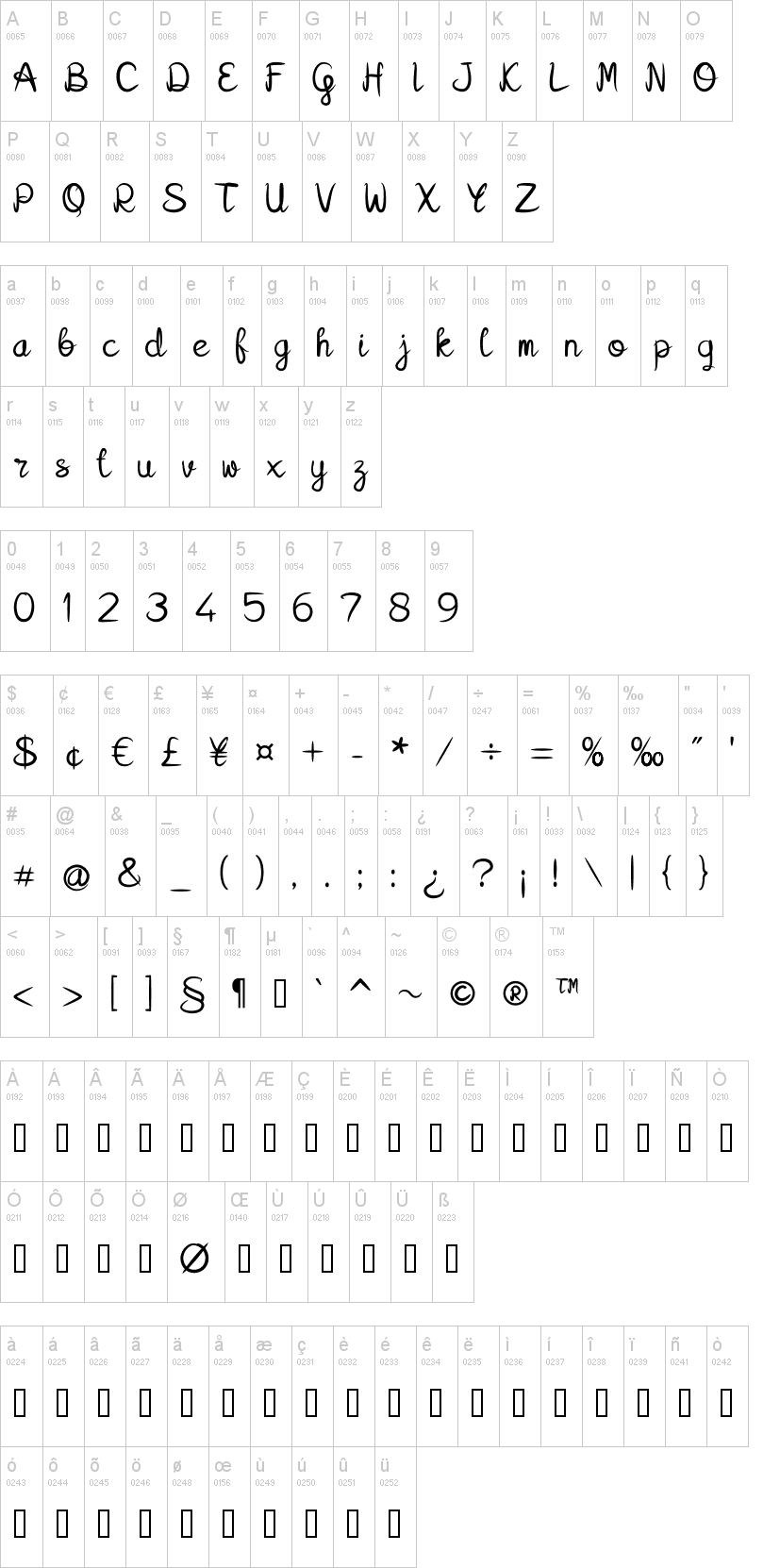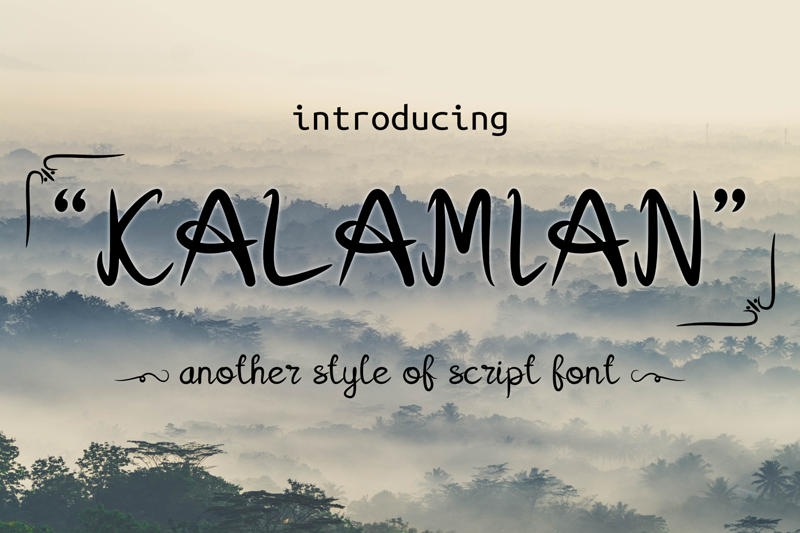
Note of the authorKalamian is a uniquely styled script font. It has sharp but rounded ends, and can be used in a large variety of designs or used it into any long text.